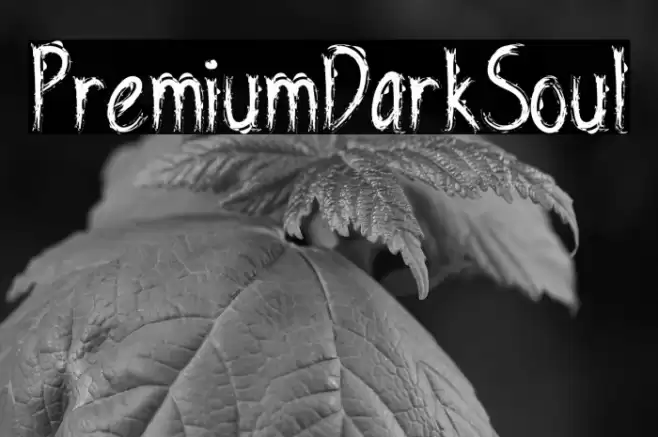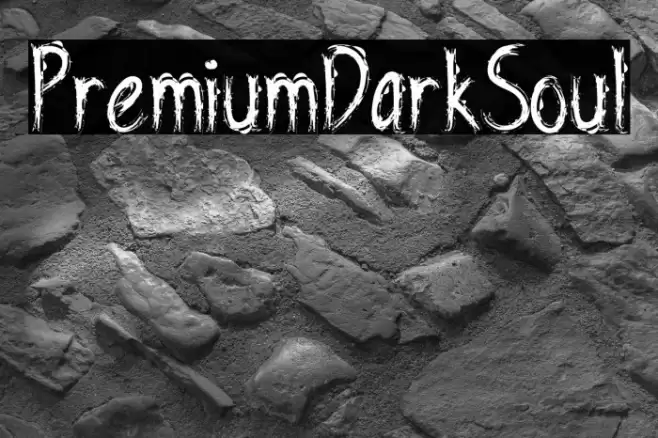
PremiumDarkSoul Font
PremiumDarkSoul Description
This font features a bold and edgy design with a distressed, grunge-like appearance. The characters are jagged and irregular, giving them a raw, hand-drawn feel. The uppercase and lowercase letters maintain a consistent style, with sharp edges and uneven strokes that create a sense of movement and energy. Numbers and special characters follow the same aesthetic, making the font suitable for projects that require a dramatic and unconventional look. The overall design is highly decorative, making it ideal for artistic and creative applications.
A bold, distressed font with a grunge-like, hand-drawn appearance from Regular fonts.
- Proposed Projects: Album covers, horror movie posters, edgy branding, streetwear designs, and artistic projects.
- Use Case: Logos, Posters, Artistic projects